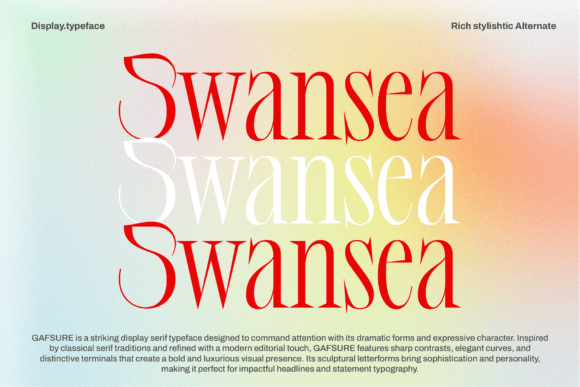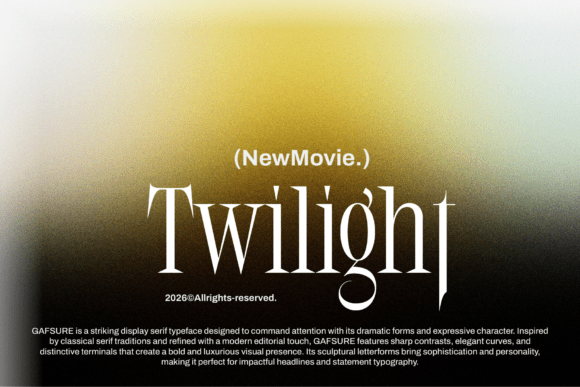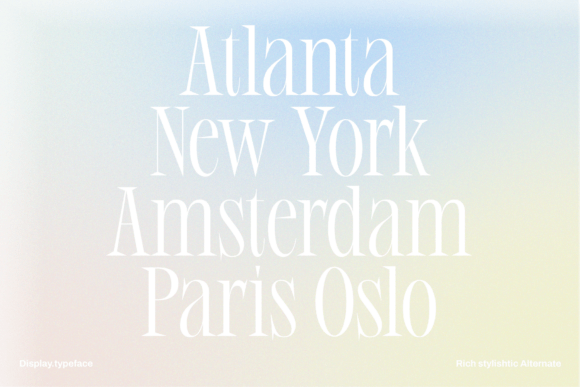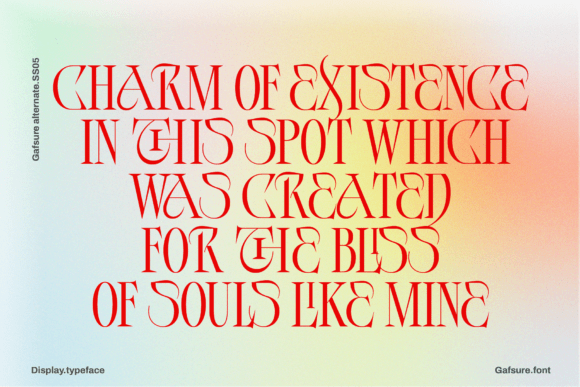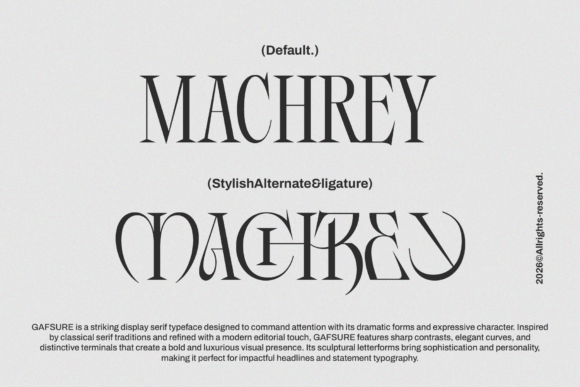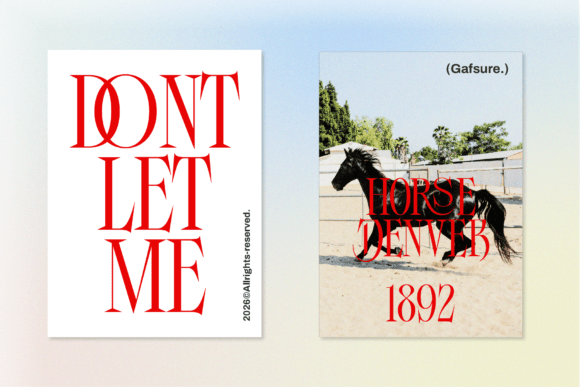
Introduction to Gafsure Font
Elevate your typography with Gafsure, a striking display serif.
Inspired by the timeless foundations of classical serifs but reimagined through a sharp, modern lens, Gafsure is a masterclass in visual contrast Its letterforms transition seamlessly between razor-sharp angles and fluid, sculptural curves, creating a bold and luxurious presence that feels at home in high-end editorial layouts.
Key Features of Gafsure Font